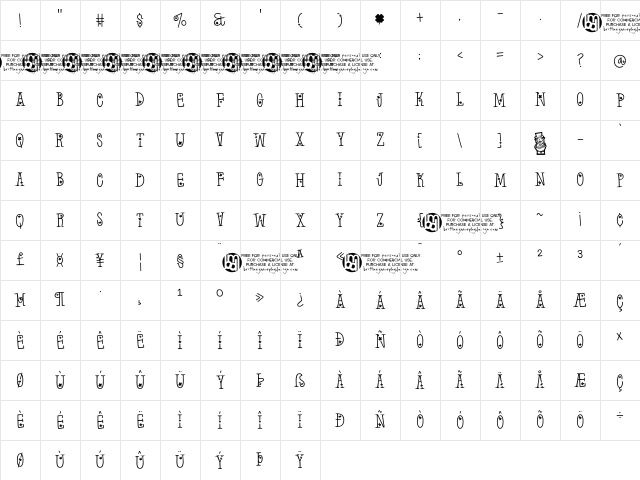
Irish^Clovers Regular
Foundry: Brittney Murphy
Designer: Brittney Murphy
Design Context for Irish^Clovers
Irish^Clovers is a composed and adaptable typeface that performs quietly and consistently across a wide range of design contexts.